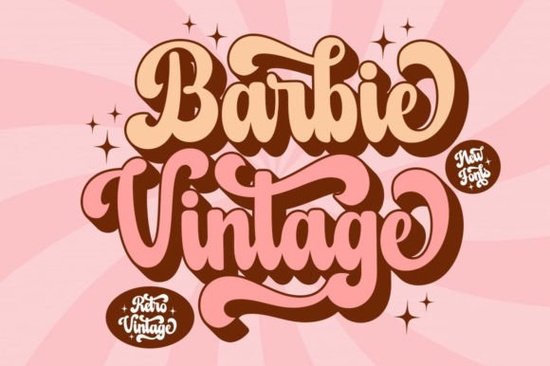
If you’ve been searching for a playful, retro-inspired display font that captures the spirit of classic design with a modern twist, the Barbie Vintage Font might be exactly what your next project needs. Designed with charm and personality, this font brings a nostalgic yet fresh energy to everything from greeting cards and posters to t-shirts and packaging. It’s especially popular among crafters, print-on-demand sellers, and small business owners who want their visuals to stand out without feeling overly complex.
What makes Barbie Vintage work so well is its balance of whimsy and clarity. The letterforms echo mid-century script styles think 1960s toy packaging or vintage soda shop signage but with clean lines that hold up beautifully at both large and small sizes. Whether you’re designing a birthday invitation or branding for a boutique product line, this font adds instant character without sacrificing readability.
What kinds of projects work best with Barbie Vintage?
This font shines in display settings where personality matters more than body text. Here are a few real-world uses:
- Custom apparel: T-shirts, hoodies, or tote bags featuring short phrases or names
- Event stationery: Birthday invites, baby showers, or retro-themed party decor
- Social media graphics: Quotes, announcements, or promotional posts that need visual pop
- Small business branding: Logos, labels, or packaging for handmade goods, bakeries, or gift shops
Keep in mind that Barbie Vintage is a display font, so it’s not meant for long paragraphs. Use it for headlines, titles, or accent text where you want to create a mood or evoke a specific era.
How does it compare to other playful display fonts?
Creative Fabrica offers a wide range of fun, expressive typefaces, and choosing the right one depends on your project’s tone. If you like the bubbly energy of Barbie Vintage but want something slightly different, consider exploring alternatives like the rounded elegance of Gemstone, the floral flair of Bloomsy, or the bold western vibe of Cowboy Block. For a groovier, 70s-inspired look, Groovy Cute delivers funky curves, while Bubble Skelly leans into playful, almost cartoonish letterforms.
Each of these fonts has its own personality, but Barbie Vintage stands out for its clean retro appeal less ornate than Bloomsy, less rugged than Cowboy Block, and more universally nostalgic than Bubble Skelly.
Can I add a shadow effect to Barbie Vintage?
The standard download for Barbie Vintage doesn’t include a built-in shadow layer. However, if you’d like to give your text that dimensional, lifted-off-the-page look, Creative Fabrica offers a separate shadow extrude file you can download to pair with it. This is especially useful for crafters using cutting machines (like Cricut or Silhouette) who want to layer vinyl or paper for depth.
For those working digitally in programs like Photoshop, Illustrator, or Canva, you can also simulate a shadow manually using drop shadow effects but the dedicated extrude file gives you precise vector control, which is ideal for print or cut files.
Tips for using Barbie Vintage effectively
To get the most out of this font, keep these practical suggestions in mind:
- Avoid overuse: One or two words in Barbie Vintage often have more impact than full sentences.
- Pair wisely: Combine it with a simple sans-serif (like Helvetica or Montserrat) for contrast and balance.
- Check spacing: Some letters may sit closer together by default adjust kerning if your software allows it.
- Test at size: Always preview your design at the actual output size, especially for print or embroidery.
And remember: while the retro style is part of its charm, make sure it aligns with your brand or message. A vintage font on a tech startup landing page might confuse customers, but it’s perfect for a candy shop or a throwback-themed event.